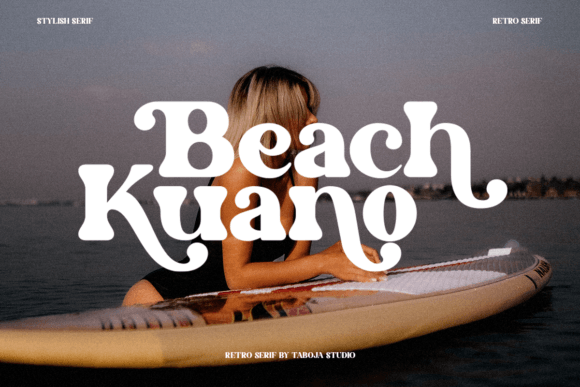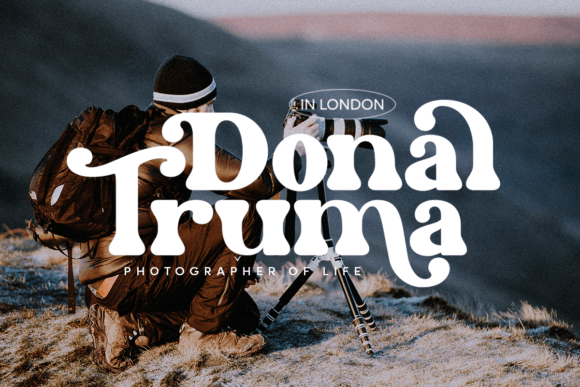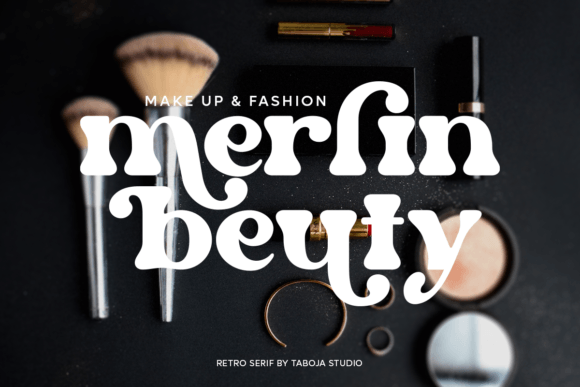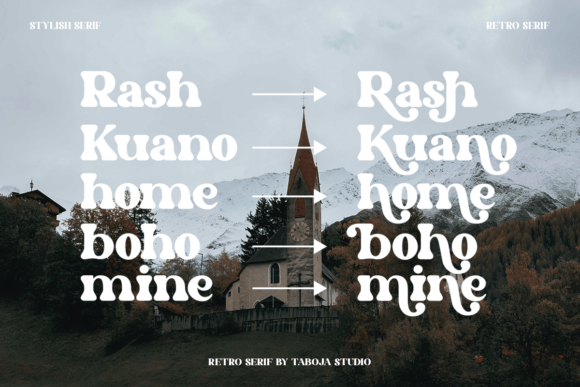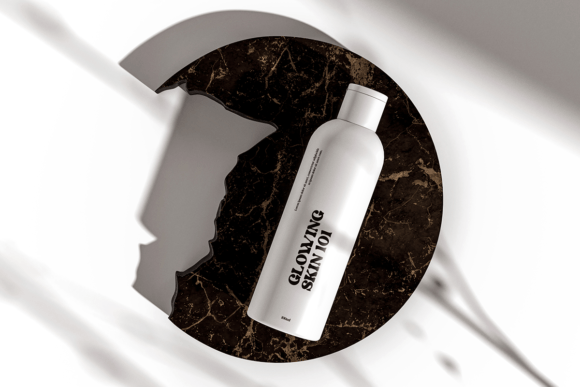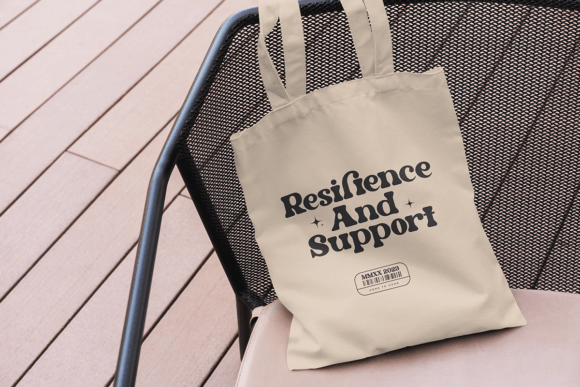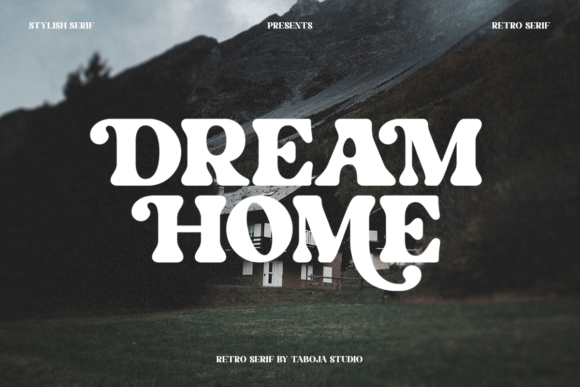
Dream Home Font: Elevate Your Designs with a Touch of Retro Elegance
In the world of typography, fonts play a pivotal role in conveying messages, evoking emotions, and setting the tone for any design project. Among the myriad of fonts available, the Dream Home font stands out as a beacon of classic charm and bold character, specifically designed to infuse a sense of nostalgia and sophistication into your creations. This article aims to explore the Dream Home font in depth, understanding its unique features, and how it can be a game-changer for designers and crafters looking to add a vintage flair to their work.
The Essence of Dream Home Font
Dream Home is a retro display serif font that draws its inspiration from the elegance of bygone eras. Its design is meticulously crafted with a keen eye for detail and proportion, ensuring that each letter not only stands out on its own but also contributes to a cohesive and visually appealing text when used together. This font is a perfect blend of classic serifs and modern appeal, making it versatile for a wide range of design applications.
Key Features of Dream Home Font
• Retro Display Serif Font: Dream Home boasts a classic serif design with a retro twist, making it unique and captivating.
• Elegant Touch: The font exudes an air of elegance, perfect for designs that require a sophisticated look.
• Bold Character: With its bold appearance, Dream Home font commands attention and adds a level of professionalism to any design.
• Attention to Detail: Each letter is carefully crafted, showcasing a high level of detail that sets it apart from more generic fonts.
• Versatility: Suitable for a variety of projects, including posters, logos, packaging, and promotional materials.
Applications of Dream Home Font
The versatility of the Dream Home font makes it an excellent choice for a multitude of design projects. Here are some of the key areas where this font can make a significant impact:
• Posters and Flyers: Add a vintage touch to your promotional materials, making them stand out and evoke a sense of nostalgia.
• Logos and Branding: Create a distinctive and memorable brand identity with a logo that incorporates the Dream Home font.
• Packaging: Elevate your product packaging with a sophisticated and elegant font that appeals to customers looking for a premium product.
• Promotional Materials: Whether it’s brochures, banners, or social media graphics, Dream Home font can add a touch of class and allure to your promotional efforts.
Why Choose Dream Home Font?
In a sea of modern and minimalist fonts, Dream Home offers a refreshing change with its classic appeal. Here are a few reasons why designers and crafters should consider adding it to their toolkit:
• Unique Appeal: The retro charm of Dream Home font ensures that your designs stand out in a crowded marketplace.
• Emotional Connection: The nostalgic feel of the font can create an emotional connection with your audience, enhancing the impact of your message.
• Adaptability: Its versatility means you can use it across various projects, from print to digital media.
Dream Home font is more than just a typeface; it’s a design element that can transform your projects with its retro elegance and bold character. Whether you’re a designer looking to add a vintage touch to your work or a crafter aiming to create visually appealing projects, Dream Home is an excellent choice. Its meticulous design, versatility, and unique appeal make it a valuable addition to any creative toolkit. So, stay creative, embrace the charm of the past, and let Dream Home font be the highlight of your next design venture. Have a wonderful day!